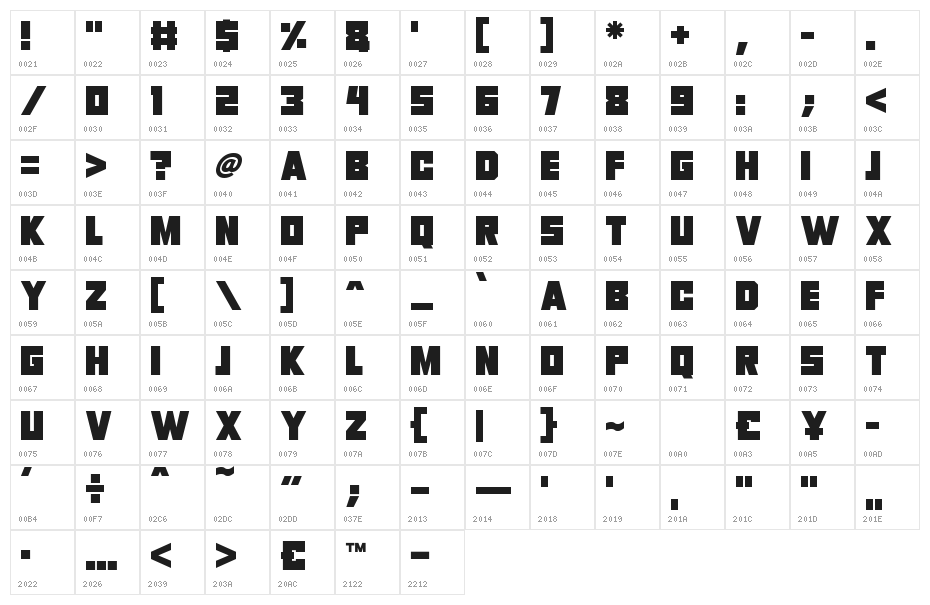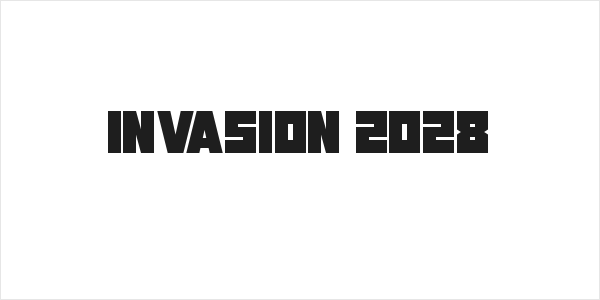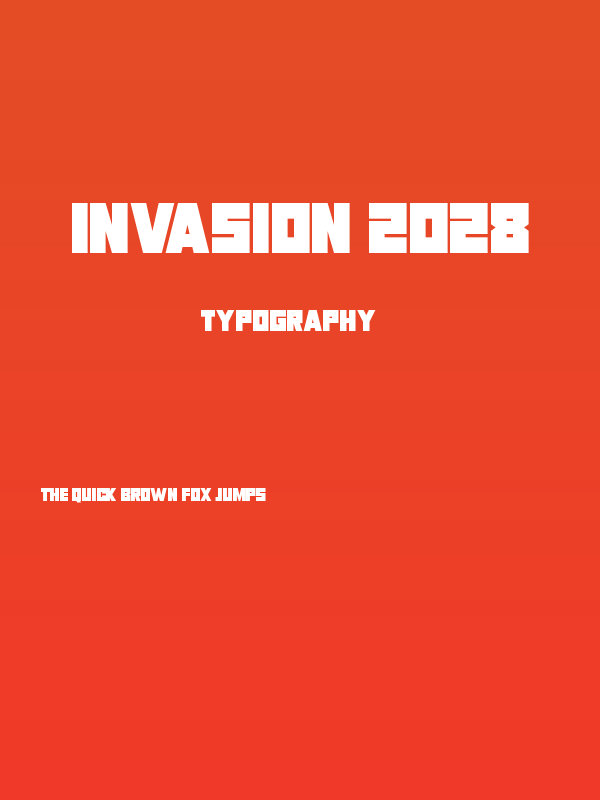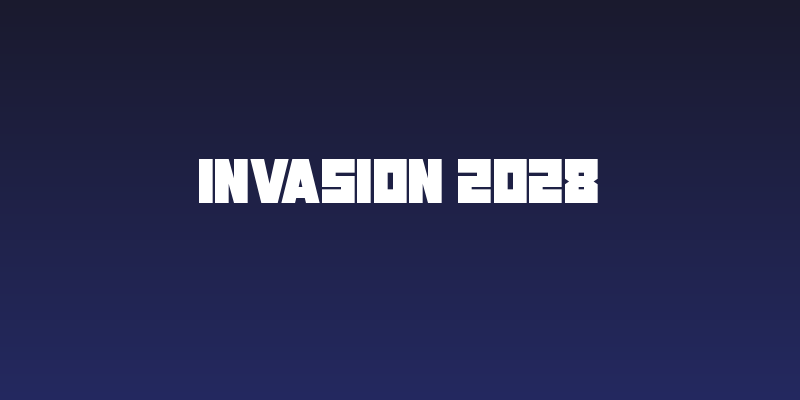
Invasion 2028 Font
Invasion 2028 Description
This font features a bold, geometric design with sharp angles and a blocky appearance, giving it a futuristic and aggressive look. The characters are uniformly wide, with consistent stroke thickness throughout, creating a strong visual impact. The uppercase letters are particularly striking, with their angular cuts and solid presence. The numerals and special characters maintain the same bold style, ensuring a cohesive look across all elements. This font's distinct style makes it ideal for projects that require a modern, edgy aesthetic.
Proposed ProjectsIdeal for sci-fi themed posters, video game titles, and branding for tech companies.